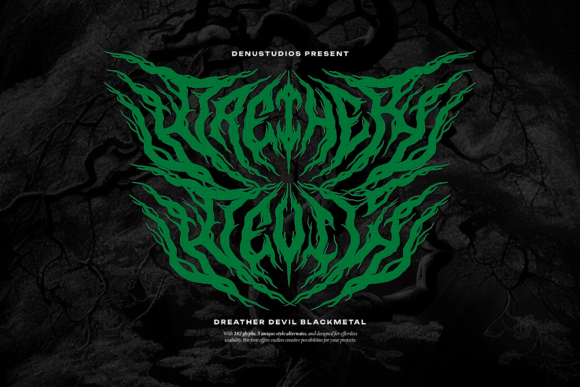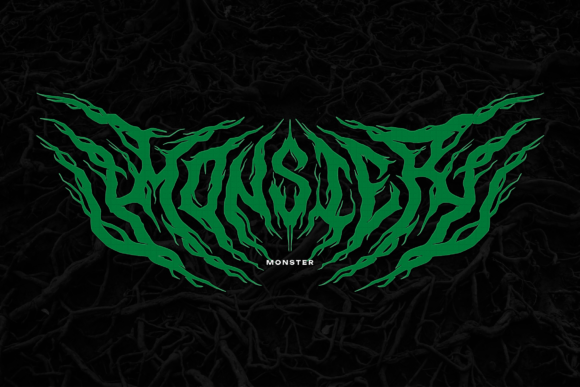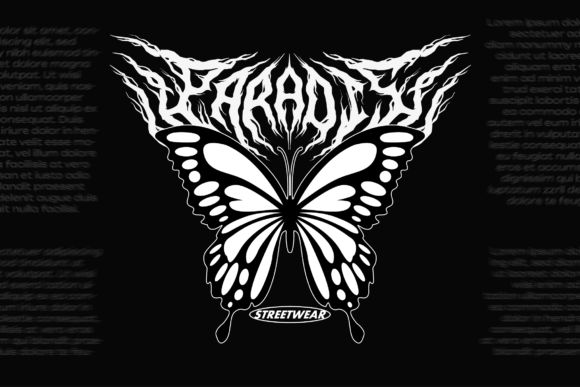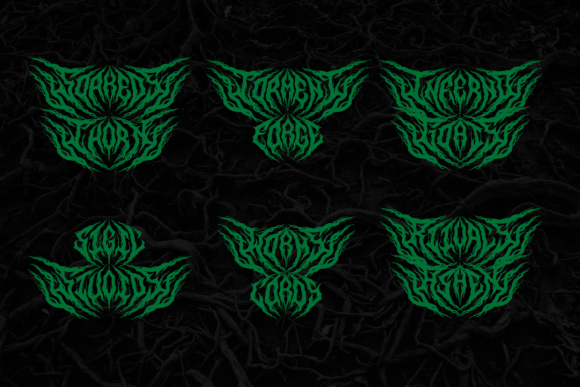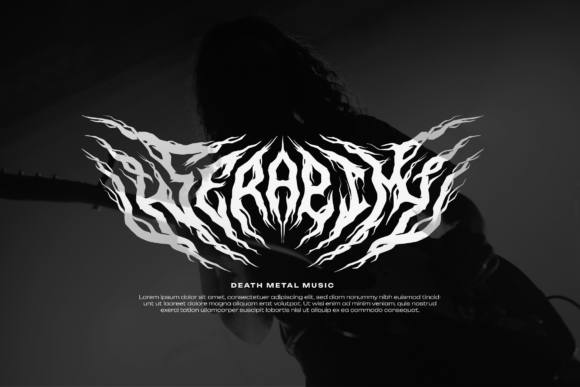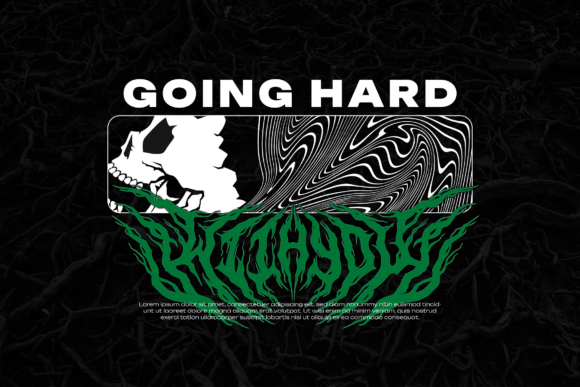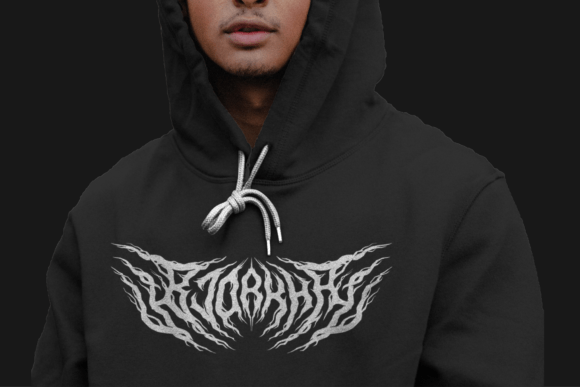
Unleashing the Fury: Introducing the Drether Devil Font
Do you ever get that feeling when you’re working on a design project, and the perfect font just doesn’t seem to materialize? You’re pouring over font libraries, scrolling through endless options, and still, nothing seems to capture the essence of your creative vision. That’s where the Drether Devil Font comes in – a viciously sharp and chaotic black metal font engineered to unleash your inner darkness.
This font is not just a tool, but a partner in crime for designers who dare to push the boundaries of extreme music branding, metal band logos, album covers, and horror-themed visuals. With 182 glyphs and 5 unique style alternates, the Drether Devil Font is a valuable asset for any designer looking to add an air of raw underground energy to their work.
Drether Devil Font Key Features
- Font Family: Drether Devil
- Character Count: 216 characters (including uppercase, lowercase, numbers, and special characters)
- Unique Characteristic: Distinctive, hand-drawn design with a mix of modern and vintage elements
Drether Devil Font Review
Overall, I’d say the Drether Devil Font has its moments ✨. The unique, hand-drawn style gives it a quirky charm that can work well for certain projects. The font is quite versatile and can be used for a variety of purposes, from logos and branding to posters and social media graphics.
- ✨ The font’s irregularities add a touch of personality and make it stand out from more traditional fonts.
- ✨ The bold weights are particularly striking and can add a lot of visual impact to a design.
- ✨ The font is highly customizable, with a wide range of options for adjusting the style and appearance.
- ⚠️ The font may not be suitable for projects that require a more professional or formal tone.
- ⚠️ Some of the characters may not be perfectly legible, particularly at smaller sizes.
- ⚠️ The font’s complexity can make it difficult to use in certain situations, such as in very large or very small text.
Overall, I’d say the Drether Devil Font is a fun and creative option that can add a lot of personality to a design. However, it’s not suitable for every project, and users should be aware of its limitations.
Here are some tips to get the most out of the Drether Devil Font:
- Use it sparingly to add a touch of edginess to your design.
- Pair it with bold and neutral colors to create contrast.
The Drether Devil Font is commonly used in:
- Rock music and heavy metal branding.
- Edgy fashion and streetwear design.
- Dark and moody graphic design.